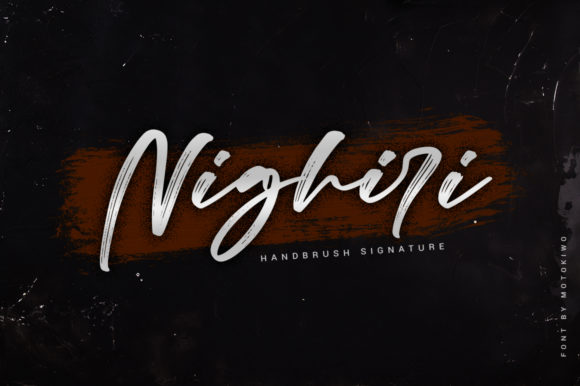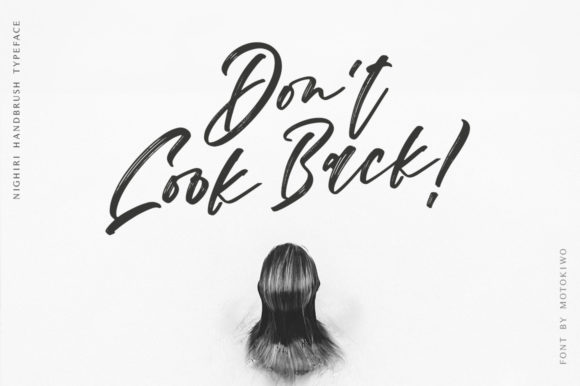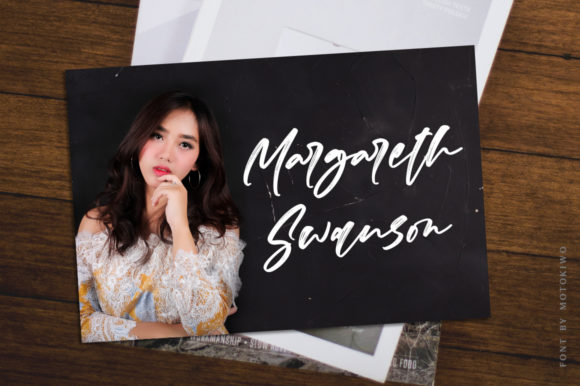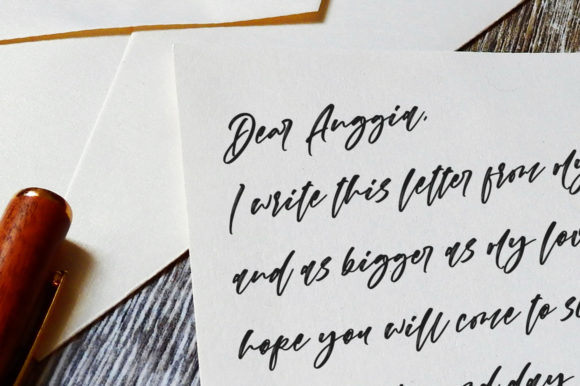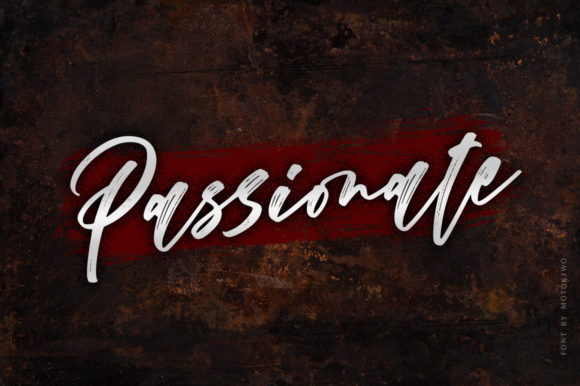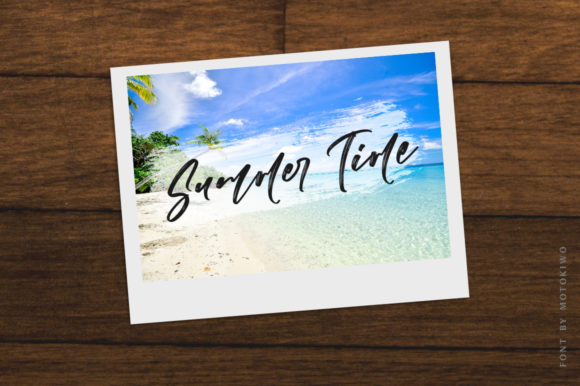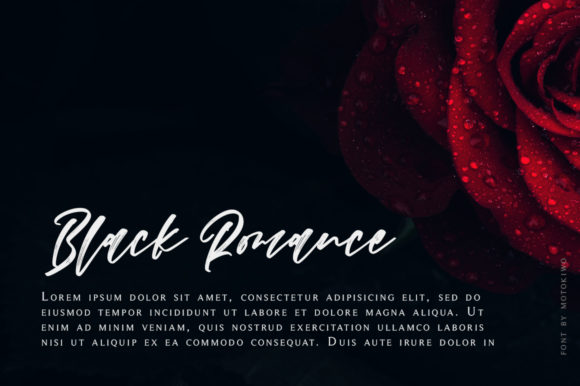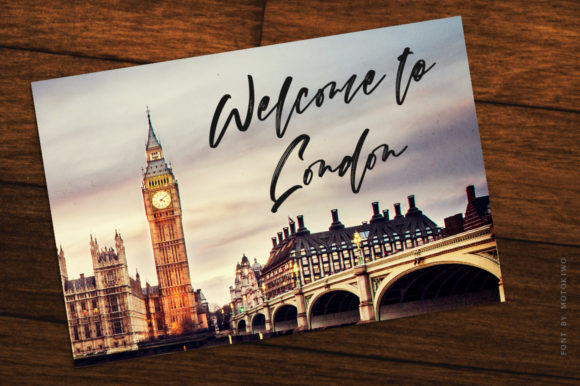
Nighiri Font
About Nighiri Font
Nighiri is a classy and elegant handbrush signature typeface that will elevate any design project, ranging from posters, logos, headlines, quotes to weddings, branding, fashion, and much more!